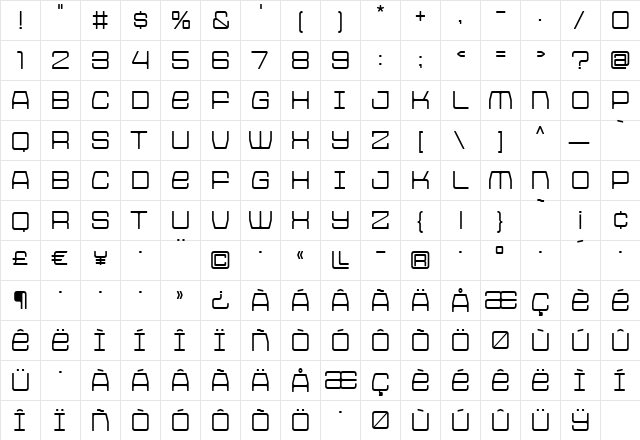
HOUSE3009 Light
Design Context for HOUSE3009 Typeface
HOUSE3009 takes a measured approach to typography — its balanced proportions and neutral character make it a reliable workhorse for both digital and print work. Its slender proportions lend an understated elegance to any composition.